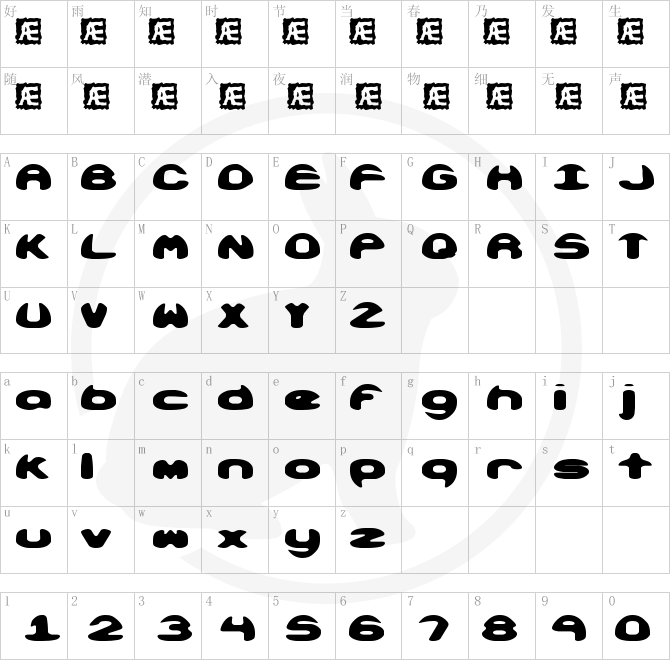
- Font Name:Obloquy Solid BRK
Obloquy-Solid-BRK-copy-1-.ttf is a very beautiful artistic font, Obloquy-Solid-BRK-copy-1-.ttf is widely used in the design and printing of various books and pictures,Obloquy-Solid-BRK-copy-1-.ttf has a strong visual impact,Obloquy-Solid-BRK-copy-1-.ttf is a commonly used font in newspapers, magazines and books, and is used in posters, e-commerce Poster design, store design, logo design, font design and other fields.Obloquy-Solid-BRK-copy-1-.